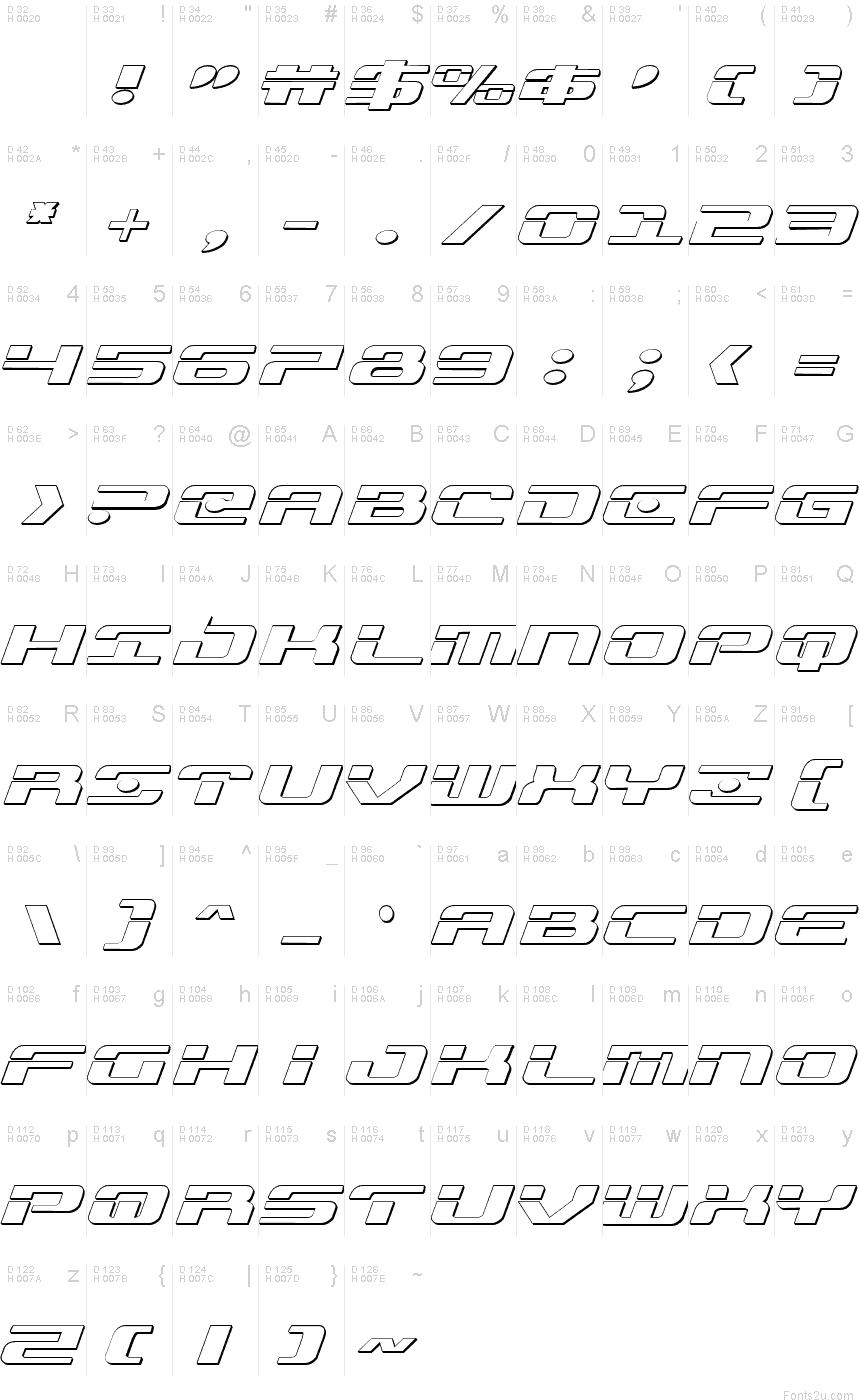
Troopers 3D Expanded Italic by Daniel Zadorozny of Iconian Fonts is a free outlined techno display font with broad, forward-leaning letters and crisp double contours. Long horizontal cuts give it a racing-machine profile.
Sports and gaming audiences are a natural match, especially for esports branding, motorsport posters, and game title screens. It also suits science-fiction merchandise, though its most convincing role is turning a racing logo into something like a custom vehicle decal.
Troopers 3D Expanded Italic